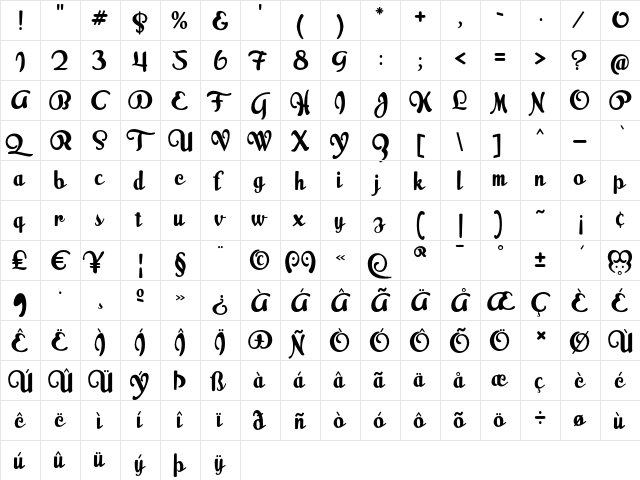
Milk Script Regular
Design Context for Milk Script Typeface
Milk Script flows with the natural rhythm of handwritten lettering, making it ideal for designs that call for warmth and personal expression.
Font Pairing: Combine Milk Script with a simple geometric sans for maximum contrast — the tension between flowing curves and clean structure is a classic typographic pairing.
Pro Tip: Use Milk Script for short runs of text — names, titles, or taglines. Extended body copy in script faces tires the eye quickly.